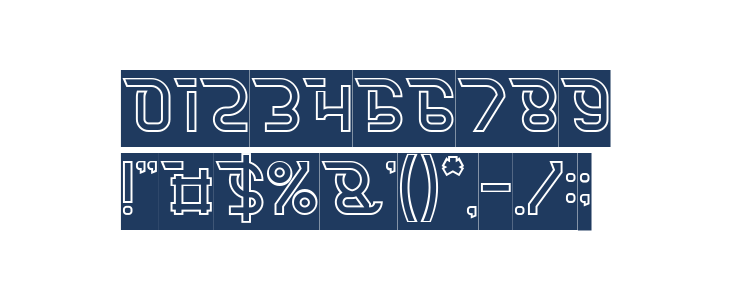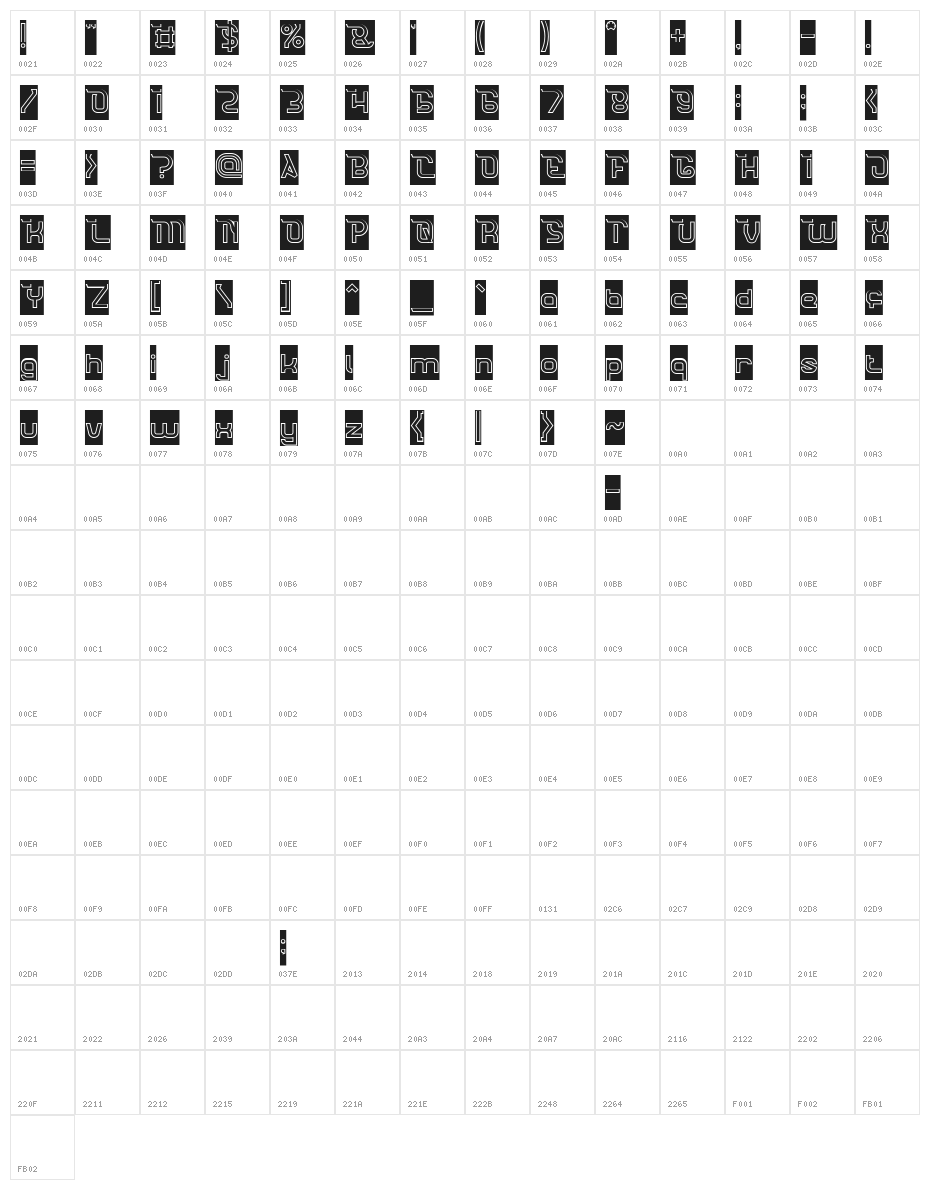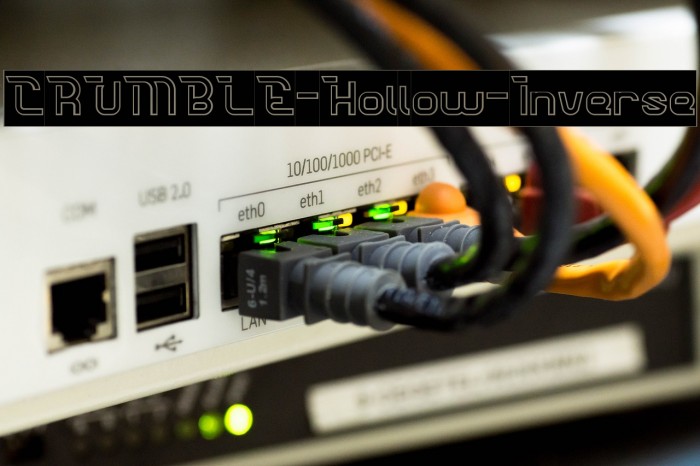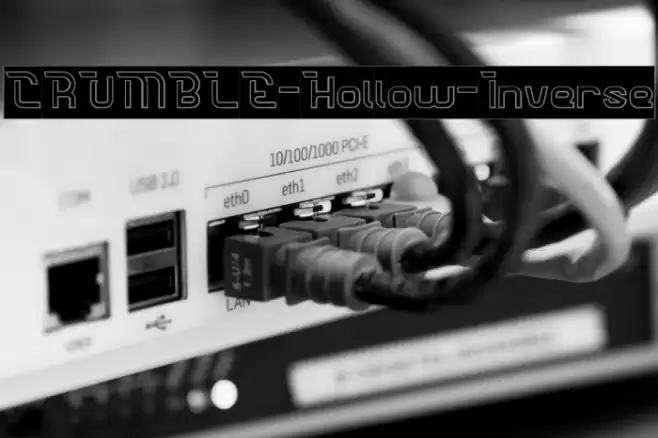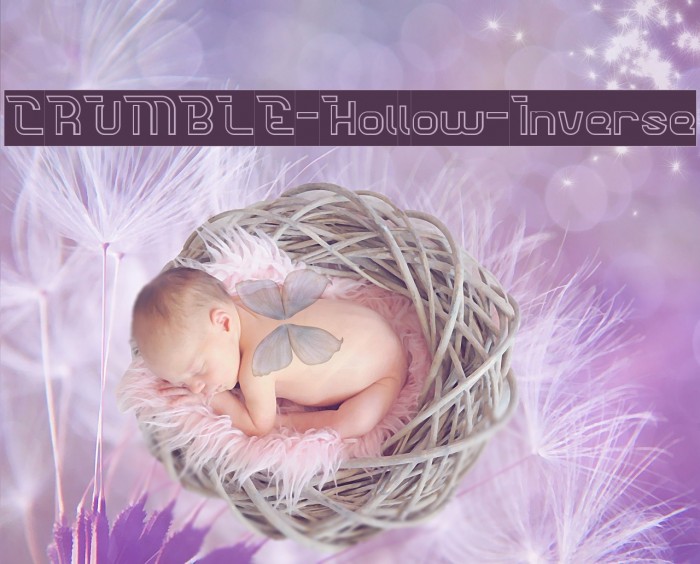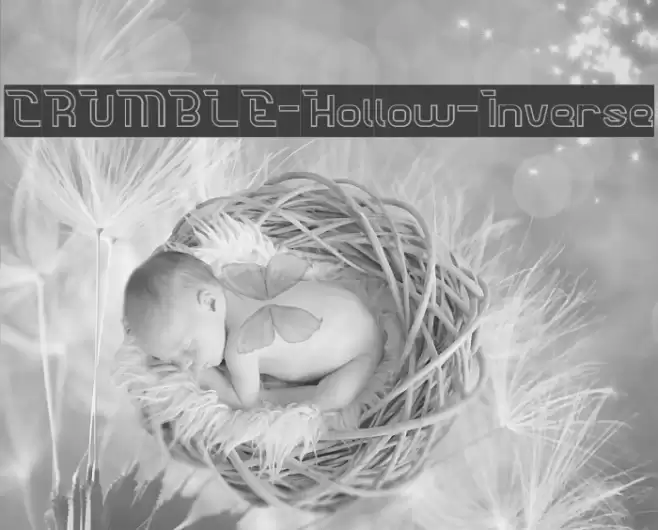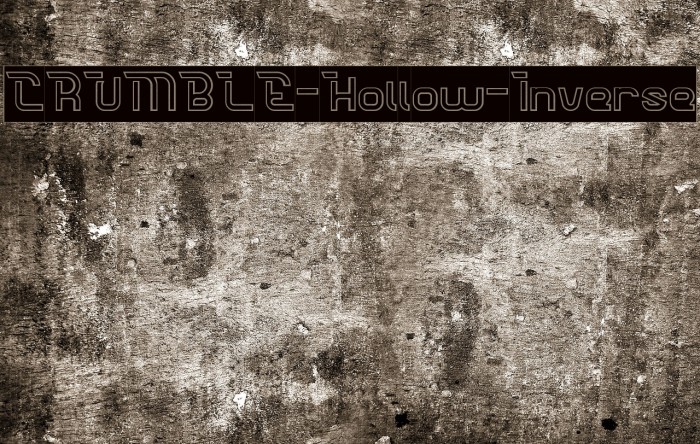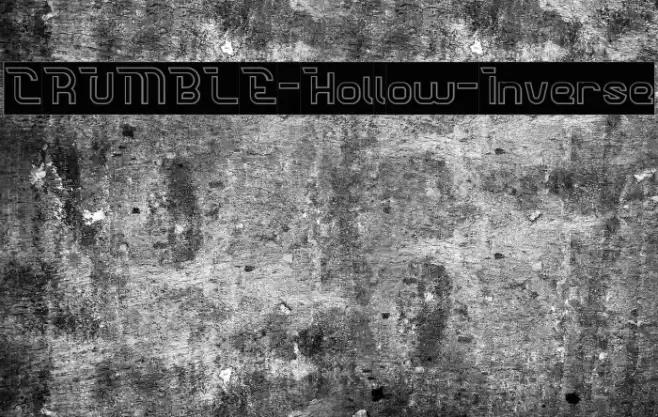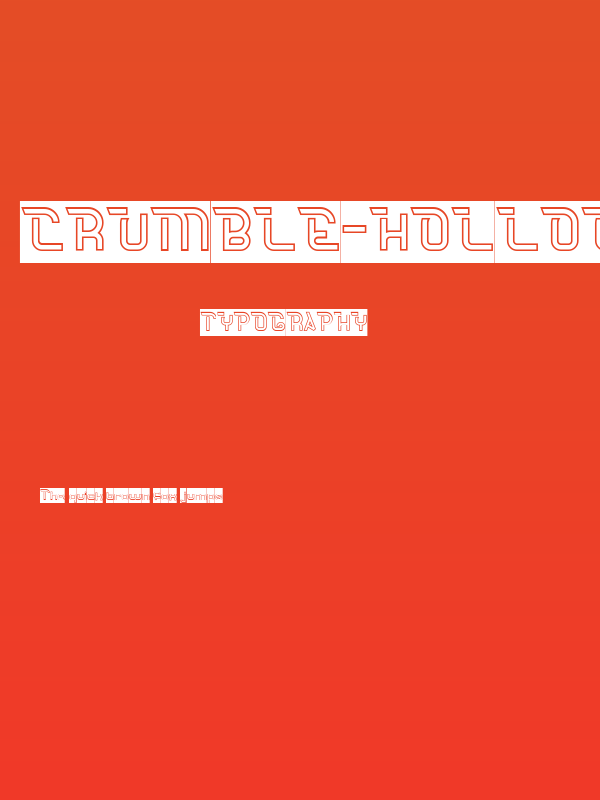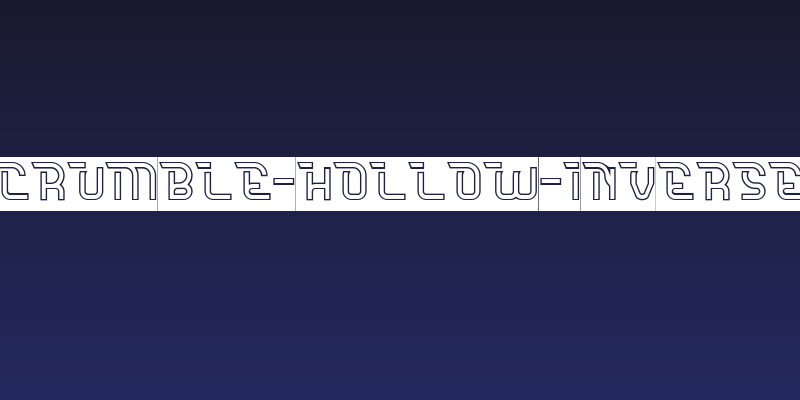
CRUMBLE-Hollow-Inverse Font
CRUMBLE-Hollow-Inverse Description
This font features a hollow, inverse design with a modern and futuristic aesthetic. The characters are outlined with a consistent stroke width, creating a bold and striking appearance. The uppercase and lowercase letters maintain a uniform style, with geometric shapes and sharp angles that give the font a unique and edgy look. The numbers and special characters follow the same design principles, ensuring a cohesive visual identity across all elements. This font is ideal for projects that require a contemporary and eye-catching typeface.